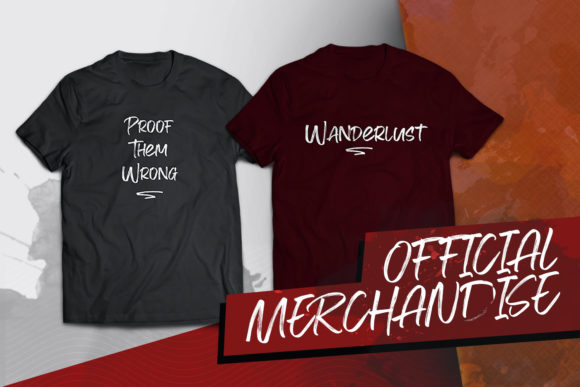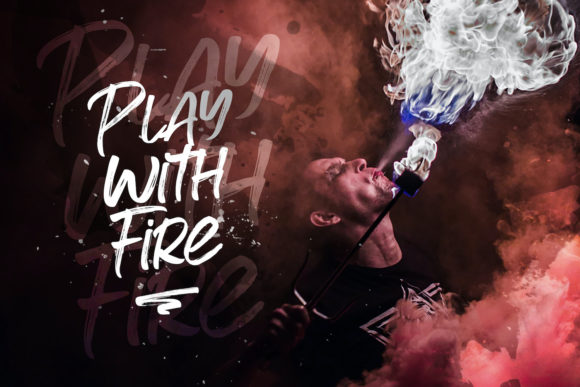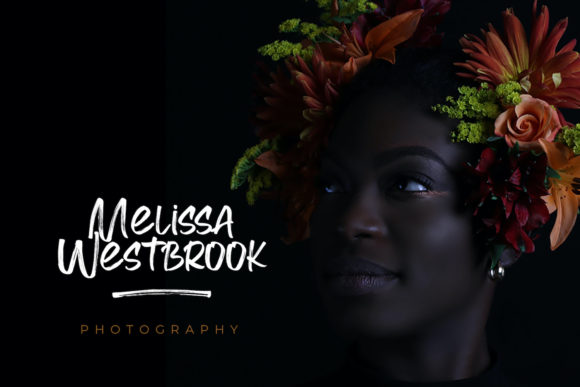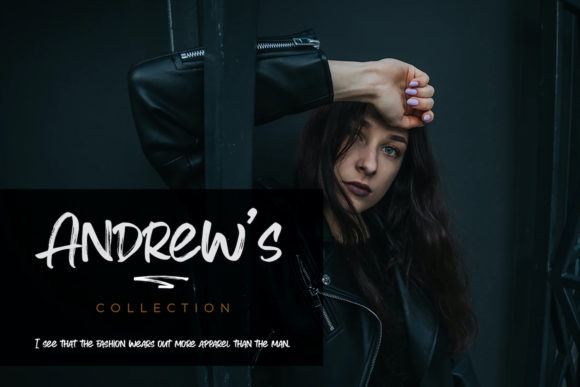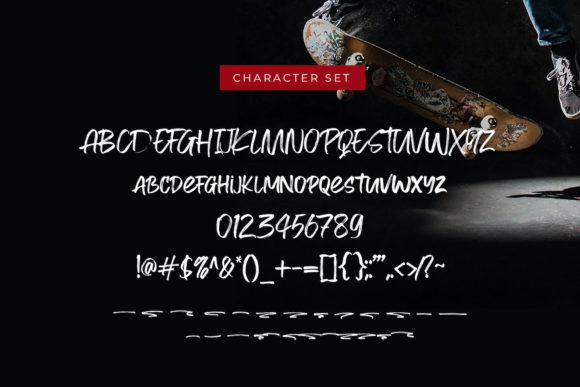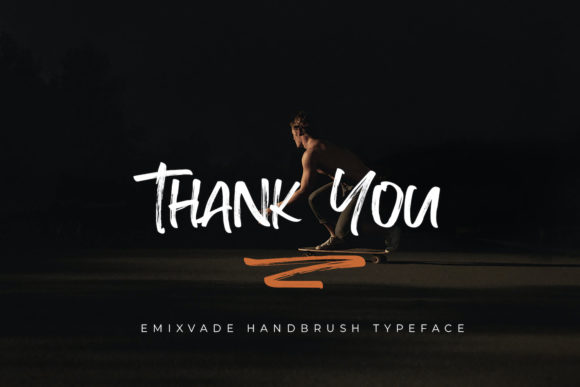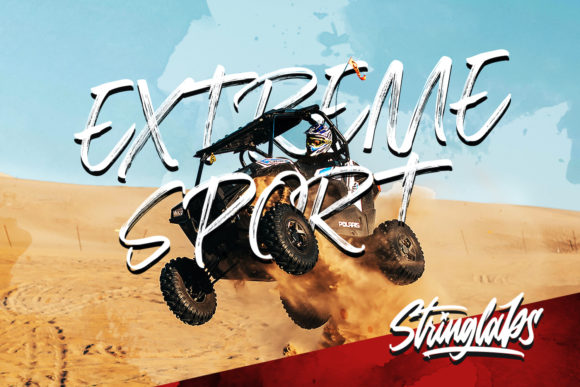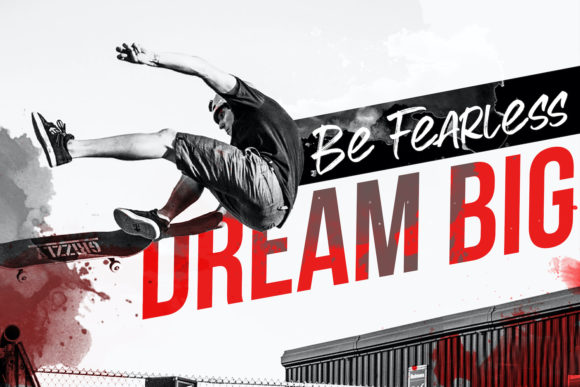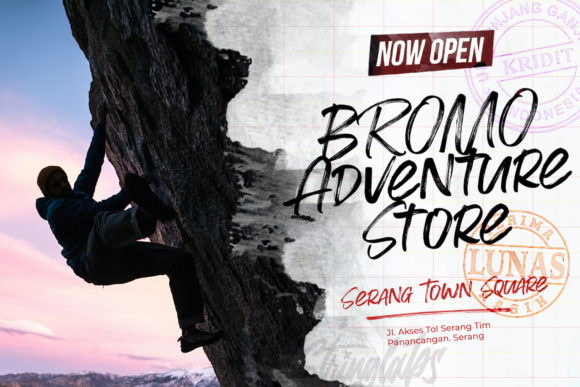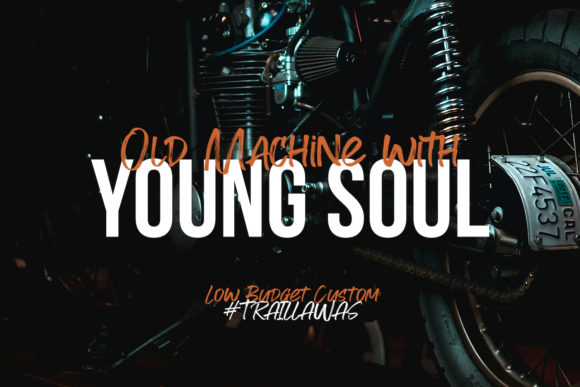
HomeScript FontsEmixvade Font Script Fonts Emixvade Font FacebookXPinterestWhatsApp Emixvade Font Poster 2 Emixvade Font Poster 3 Emixvade Font Poster 4 Emixvade Font Poster 5 Emixvade Font Poster 6 Emixvade Font Poster 7 Emixvade Font Poster 8 Emixvade Font Poster 9 Emixvade Font Poster 10 Emixvade Font Poster 11 Emixvade Font Poster 12 Emixvade Font Poster 13 Emixvade Font Poster 14 Emixvade Font Poster 15 About Emixvade Font Emixvade is a modern handbrushed font with a personal twist. Get inspired by its authentic charm! DOWNLOAD NOW People also explored Deepblue Font Saturday Night Font Sunshine Font Padimas Font Mokalatte Font Watkins Font Bitter Font Great Mama Font Monteray 334 0 TagsEmixvade Font Previous articleRindhus FontNext articleRamhate Font LEAVE A REPLY Cancel reply Comment: Please enter your comment! Name:* Please enter your name here Email:* You have entered an incorrect email address! Please enter your email address here Website: Save my name, email, and website in this browser for the next time I comment. Personal Use Free Hollster Personal Use Free Read more about this font Ginóra Personal Use Free Read more about this font Metal Lord Personal Use Free Read more about this font GoodFay Personal Use Free Read more about this font BLOG How to Cut Any Font on Cricut: Convert a Font to SVG (Free) Turn any font into a clean SVG so it cuts crisp on Cricut - a quick 3-step workflow using a free font-to-SVG tool. Best Fonts for T-Shirt Design – Top 2025 Picks The 10 Best Handwriting Fonts to Add Personality to Your Designs Top 10 Handwritten Fonts That Elevate Your Designs